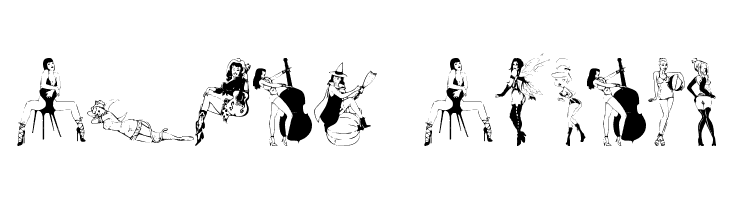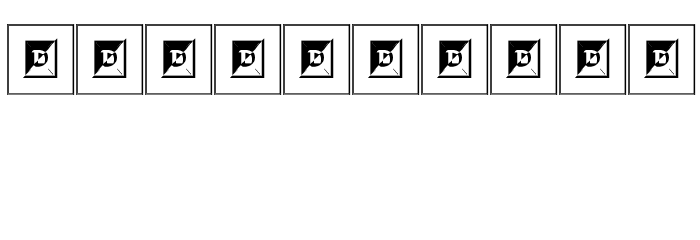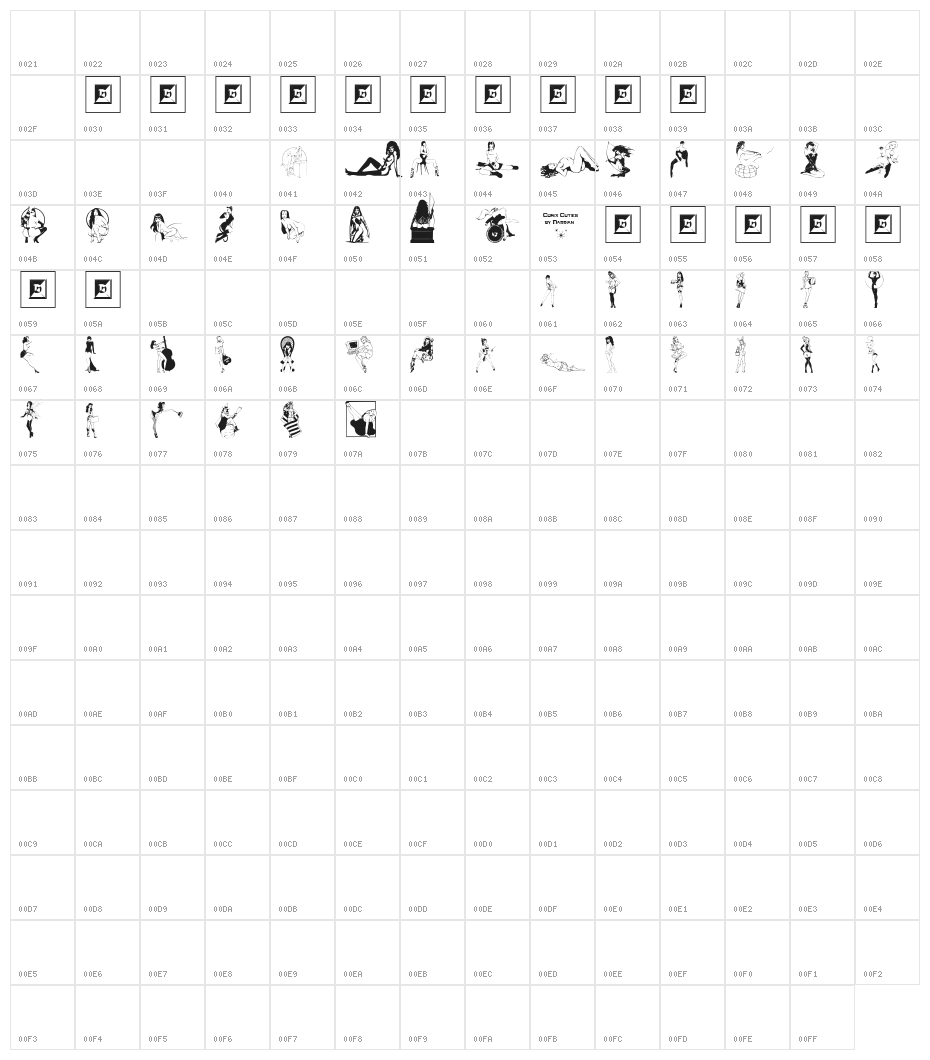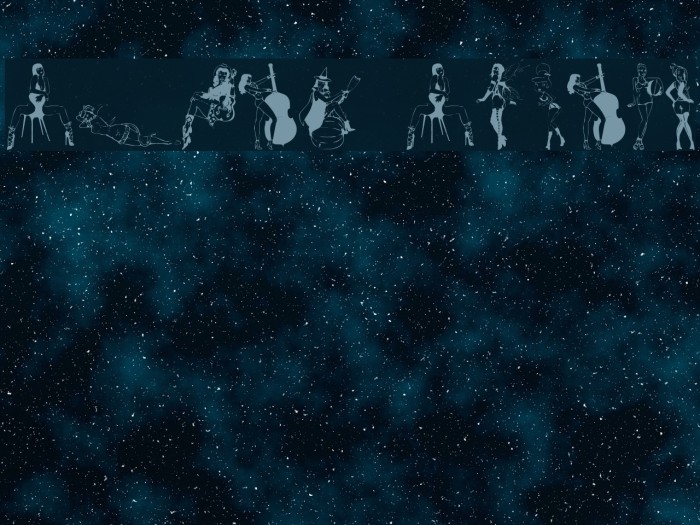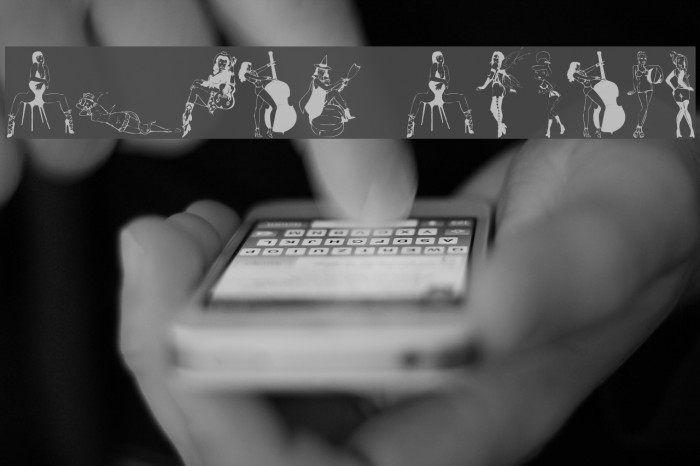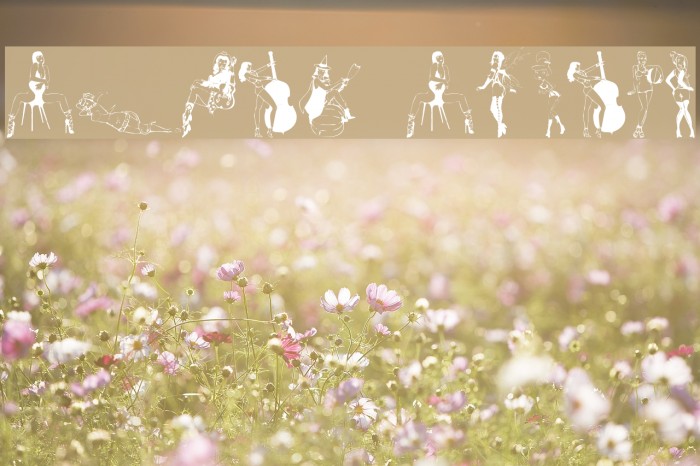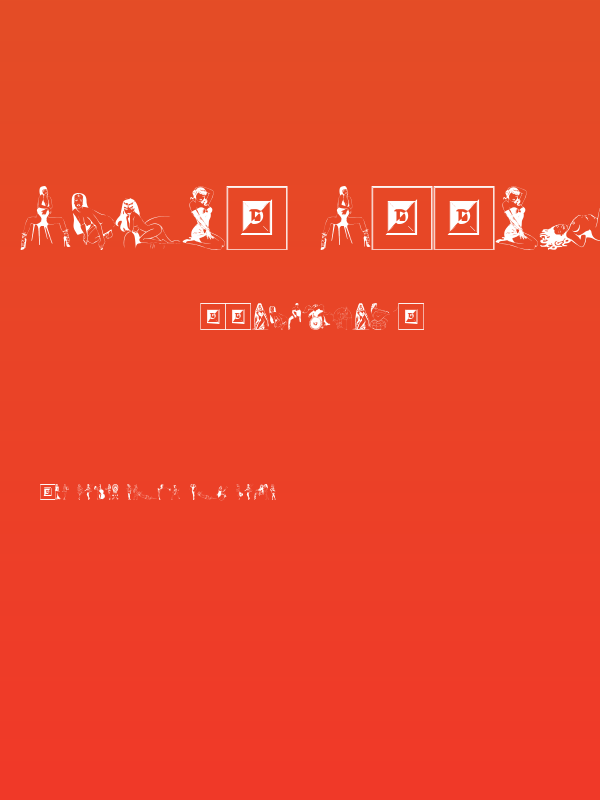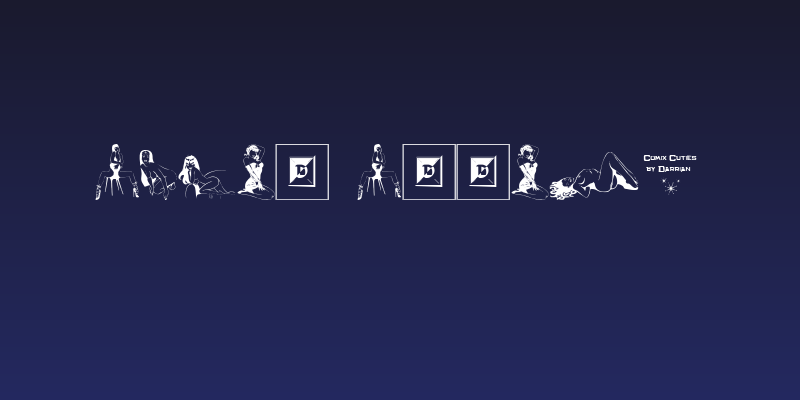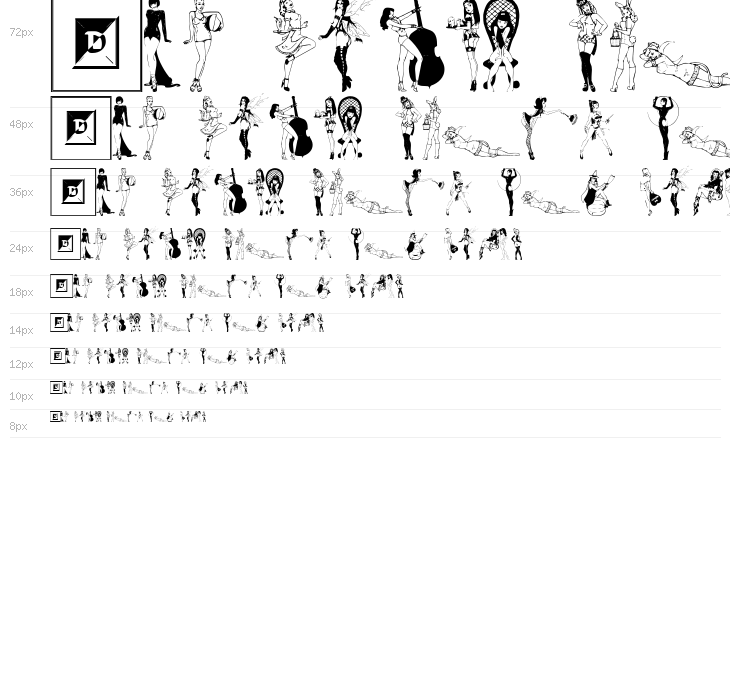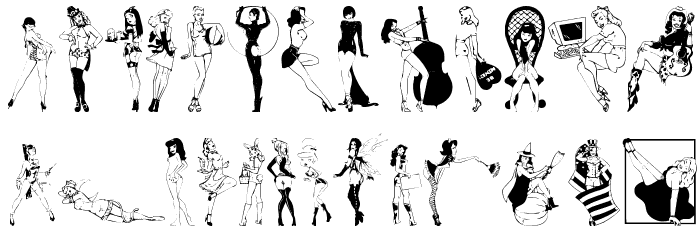
Comix Cuties Font
A decorative dingbat font featuring detailed, playful cartoon illustrations of women in various poses and costumes, with some additional graphic icons and framed monogram elements.
Overall StyleDecorative, Playful, Comic-inspired
Use CaseDecorative elements, Themed graphics, Posters
Proposed ProjectsPosters, comic book titles, themed party invitations, novelty merchandise, graphic design accents.